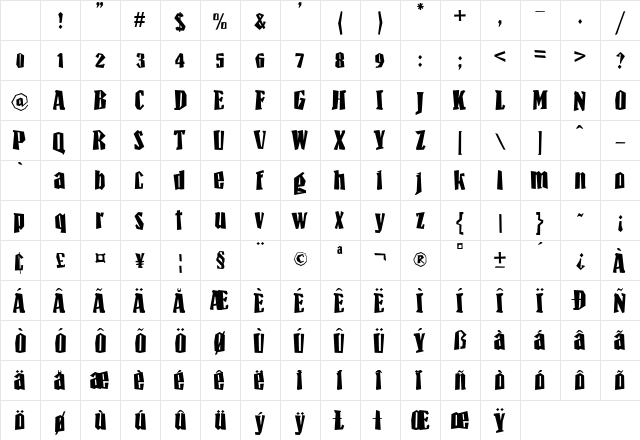
Complete Paradiso Bold glyph index. Displaying only characters natively supported by Paradiso Bold font.
Paradiso is a composed and adaptable typeface that performs quietly and consistently across a wide range of design contexts. Its bold stroke weight gives it real presence on the page.